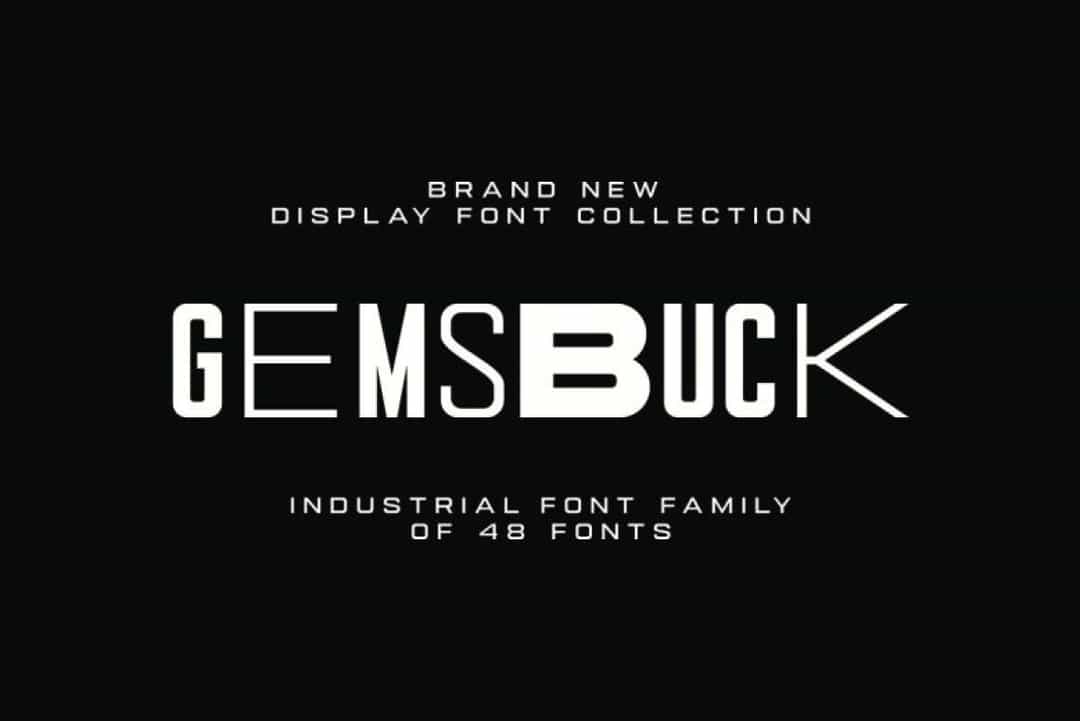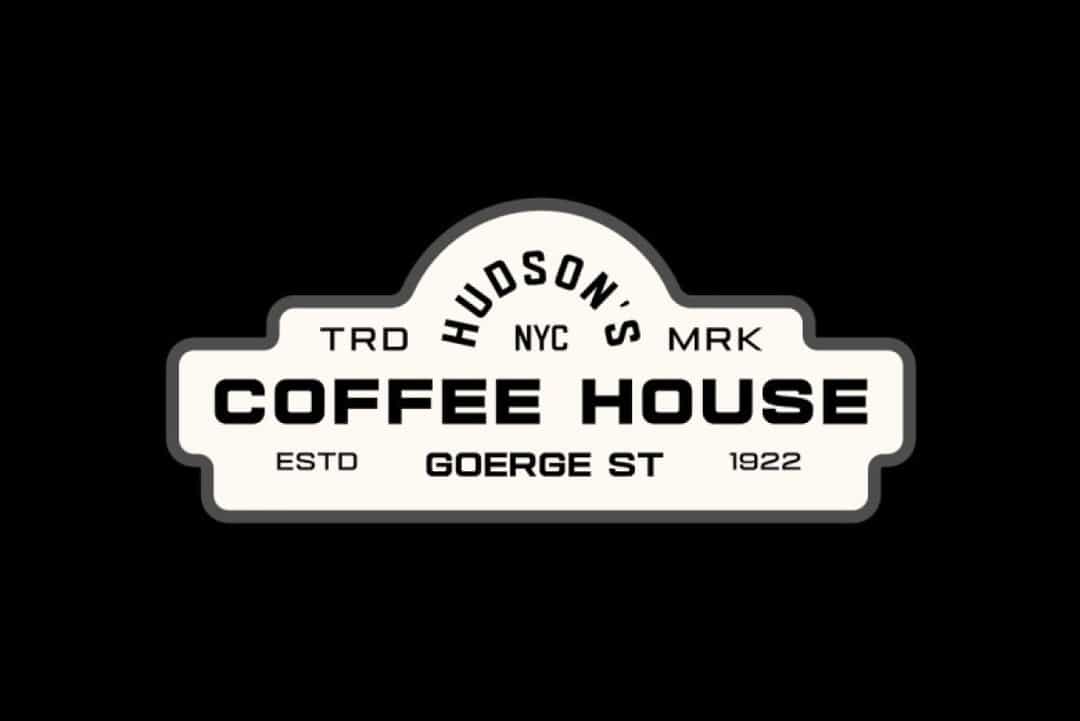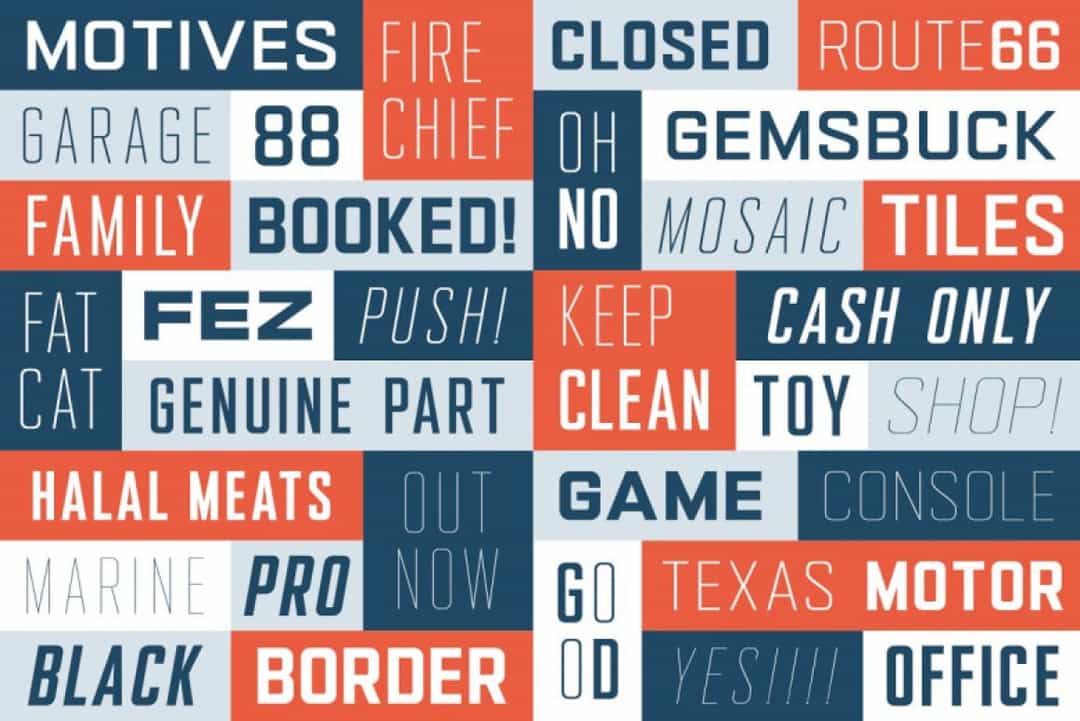
Gemsbuck Font
Discover Gemsbuck Font, part of the   Sans Serif collection—a versatile and unique font perfect for adding a personal touch to your projects. Download it for free and enjoy crafting designs with style, from invitations to social media posts. This font is available exclusively for personal use, giving you the freedom to create without limits. Unlock your creativity with Gemsbuck Font today!
Gemsbuck, the modern sans serif typeface designed specifically to meet large visuals with strong emotional impact, provides you with plenty of weights ranging from light to black font weights that allow you to find just the perfect typeface color. With over 150 choices between light and black weights available for you to select from when choosing a weight range for your project, Gemsbuck’s wide variety is guaranteed to meet the demand and exceed it!